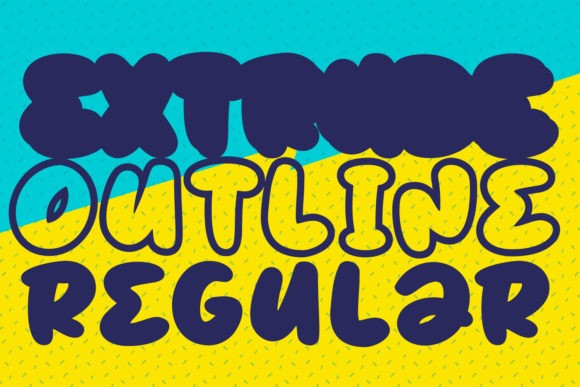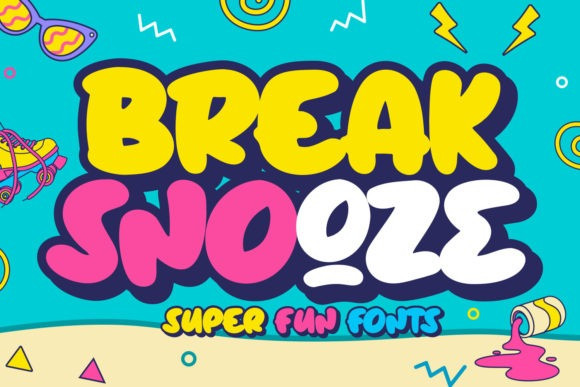
Break Snooze Font
Break Snooze Display Font is a cool and bubbly display font. It embodies playfulness and authenticity and is the perfect choice for any children activity or school project.